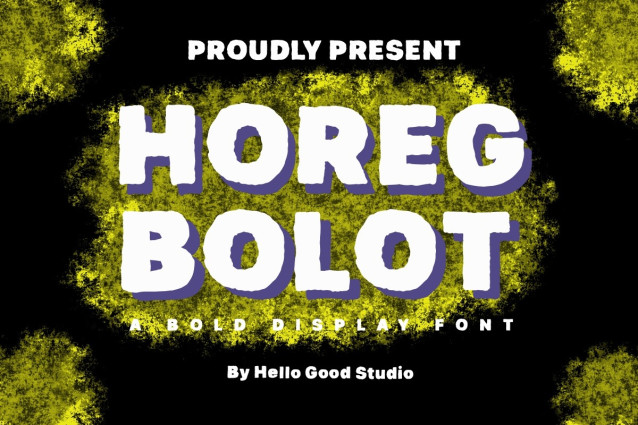
Horeg Bolot Font
Horeg Bolot Font is a chunky, comic, and cartoon display font. With its neat and joyful personality, this font will enhance any project you wish to create!